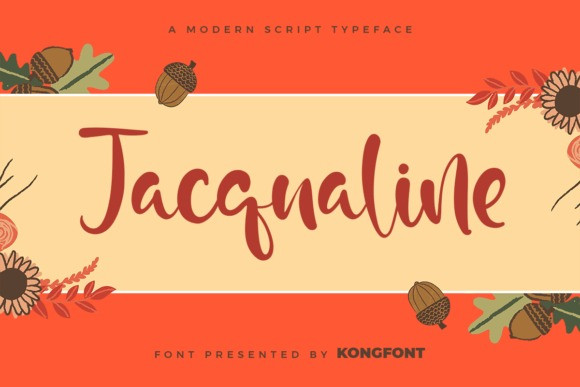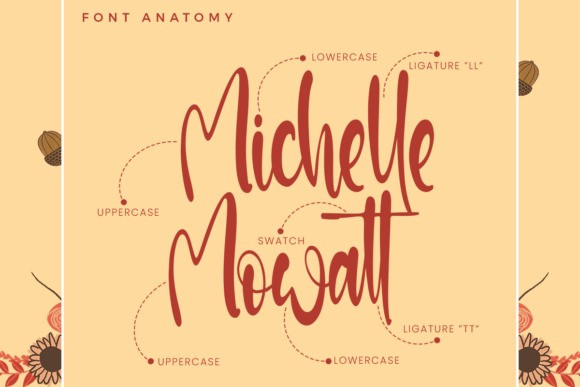
Jacqualine Font
Jacqueline is a fresh and beautiful handwritten font, designed to give a more personal touch to your designs. Every letter has a unique and beautiful touch, which will make your design come alive!